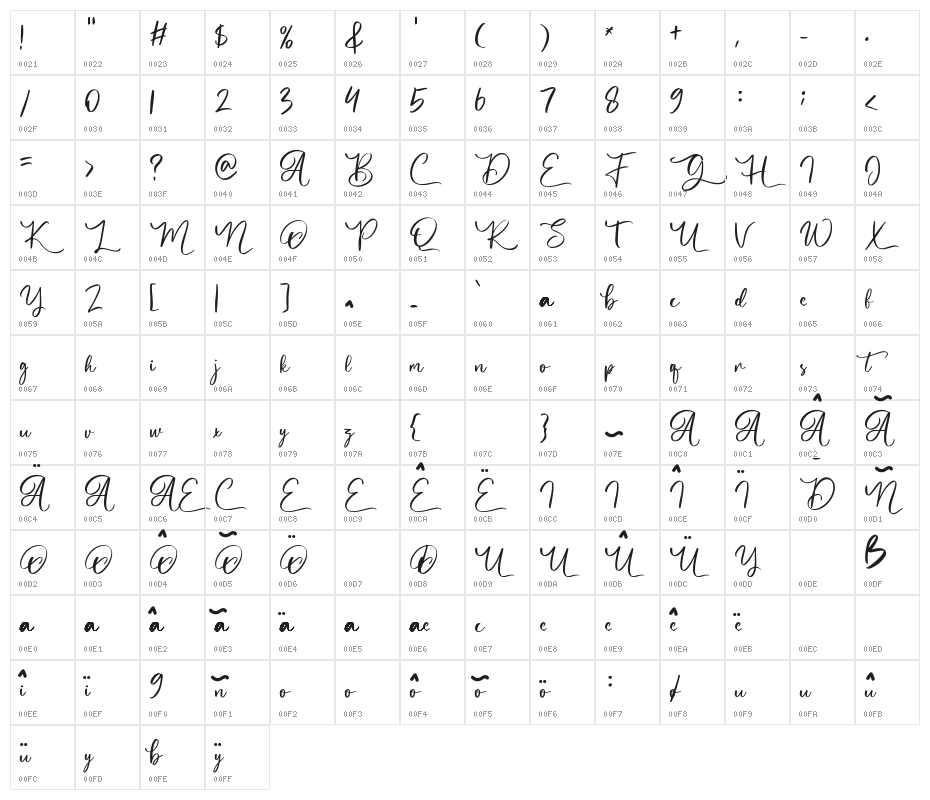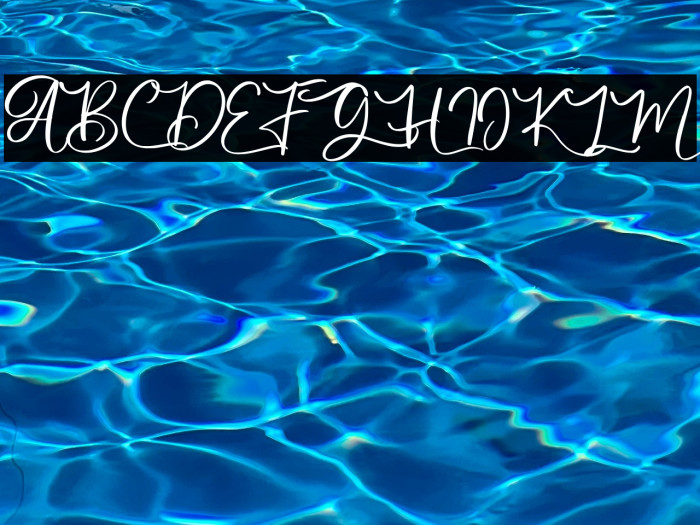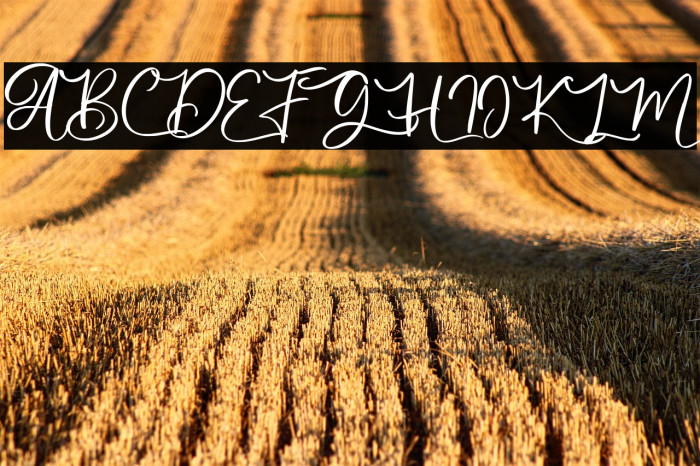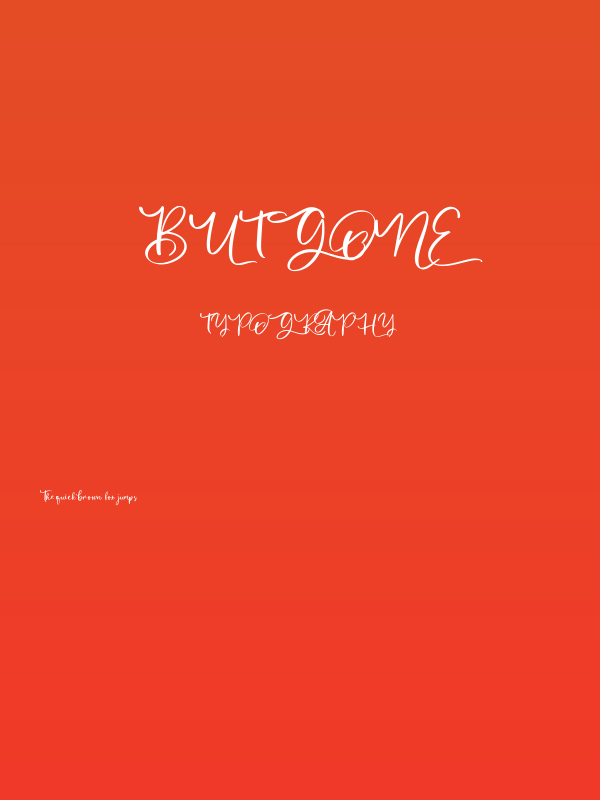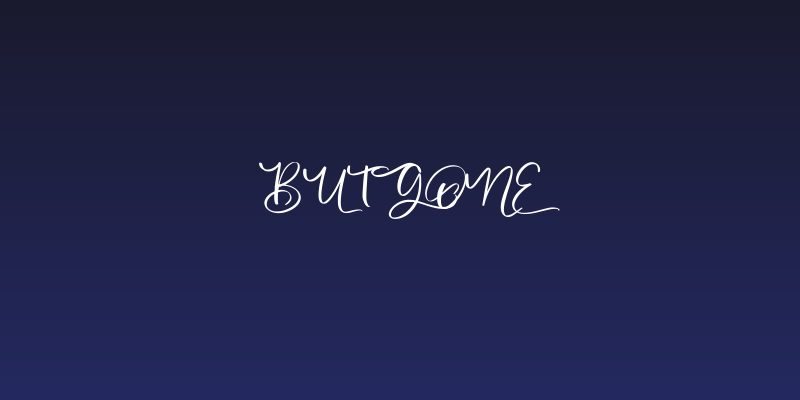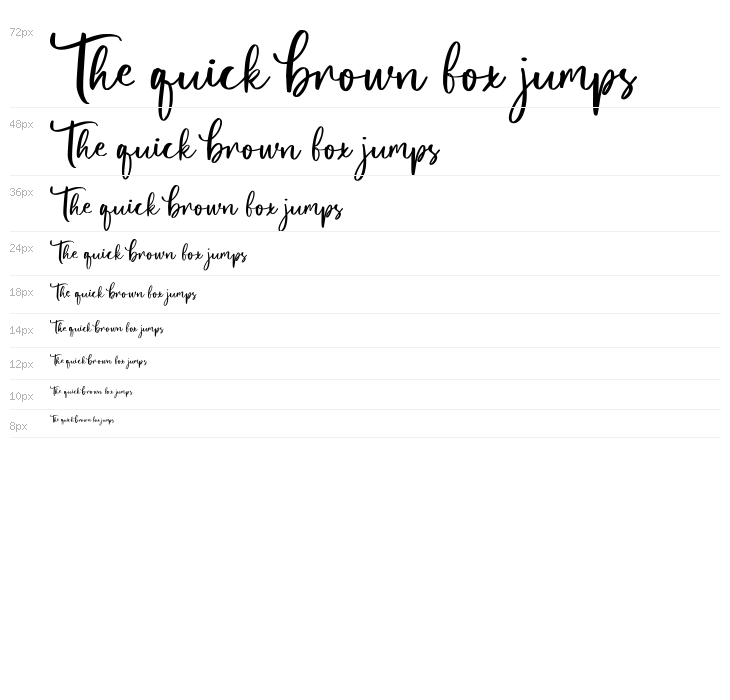
Butgone Font
Butgone Description
This font exudes a lively and elegant script style, characterized by its flowing, cursive letterforms that mimic natural handwriting. The uppercase letters are ornate, with sweeping curves and loops that add a touch of sophistication. The lowercase letters maintain a consistent flow, enhancing readability while retaining the font's artistic flair. Numbers and special characters are crafted with the same attention to detail, ensuring a cohesive look across all text elements. This font is ideal for projects that require a personal touch, such as invitations, greeting cards, or branding materials that aim to convey elegance and creativity.
| Overall Style | Elegant, Artistic |
| Use Case | Headlines, Invitations, Branding |
| Proposed Projects | Ideal for wedding invitations, greeting cards, personal branding, and creative projects. |